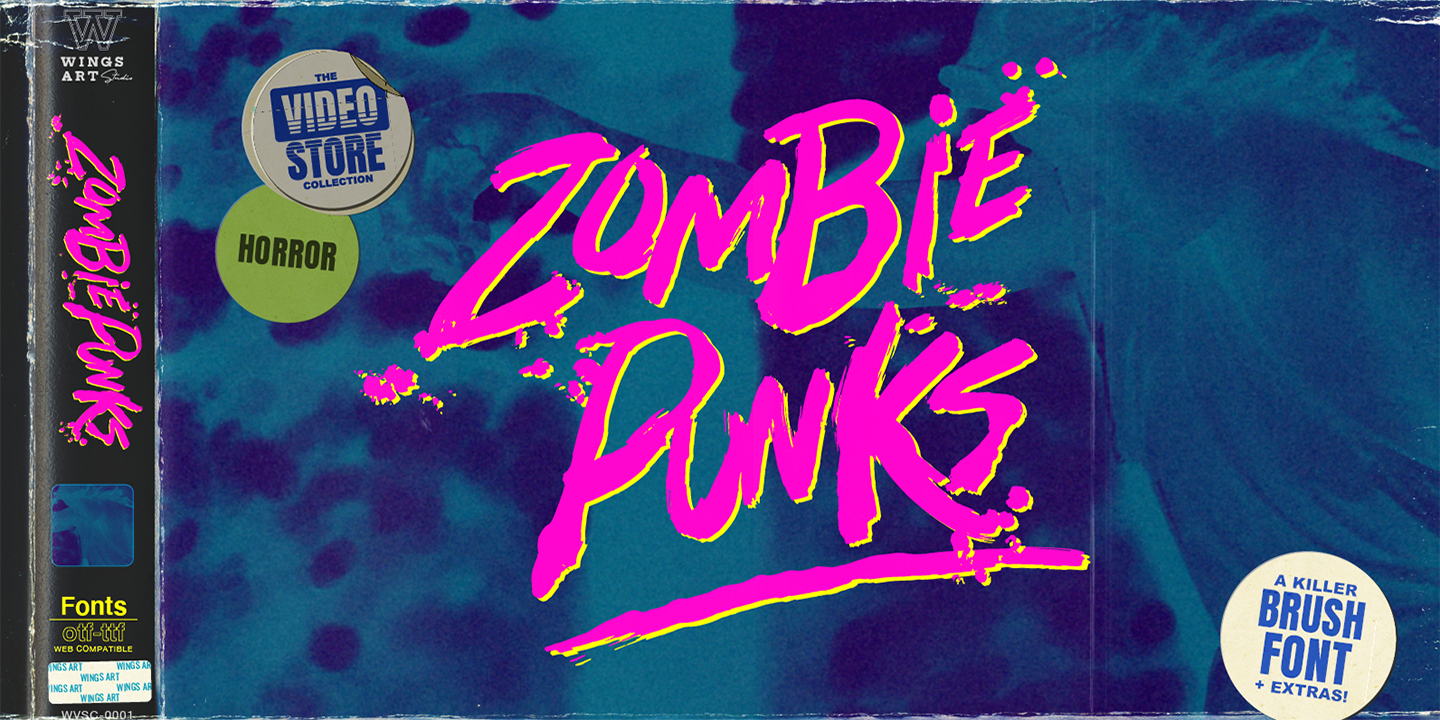
Zombie Punks Font is an exceptional choice for projects that demand a gritty, rebellious, and distinctly apocalyptic aesthetic. It's perfectly suited for horror game titles, punk rock album covers, indie comic books, Halloween party invitations, and any design where you want to evoke a sense of chaotic energy, decay, and an undeniable edge. Imagine it tearing across a movie poster for a zombie flick, giving a band's logo a raw and unpolished feel, or adding a menacing touch to a haunted house promotion. Its distressed textures and unsettling character forms ensure your message is conveyed with both an undeniable attitude and a captivating, visceral impact.
What makes Zombie Punks Font so exciting is its ability to instantly infuse a design with a sense of raw, untamed energy and a distinct subculture identity. It captures the essence of a post-apocalyptic world blended with a DIY punk ethos, making it ideal for projects that aim to feel intense, defiant, and deeply impactful. This font isn't just about displaying text; it’s about making a visceral statement, adding a layer of rebellious spirit and raw artistic power to your visuals. It's the ideal tool for designers looking to infuse their work with a strong, uncompromising character and a memorable visual punch, specifically tailored for themes of horror, punk, and survival.
The Zombie Punks Font family typically focuses on delivering its signature distressed and unsettling style with precision. You might find a standard Regular weight that embodies its core aggressive aesthetic, along with potential variations that enhance its visual impact, such as bolder versions or slight stylistic alterations that reinforce its decayed character. These nuances ensure that Zombie Punks Font Free Download can be the cornerstone of a truly unique and powerfully thematic visual identity, helping your designs stand out with an undeniable sense of character and unbridled force.